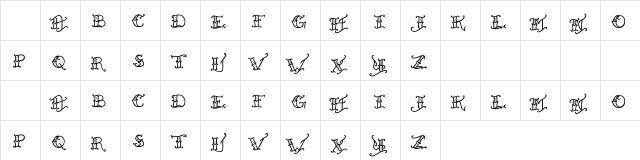
Held x Fast Regular Free Font
Held x Fast Regular
Designer: Out Of Step Font Company
Design Context for Held x Fast
Held x Fast is a composed and adaptable typeface that performs quietly and consistently across a wide range of design contexts.